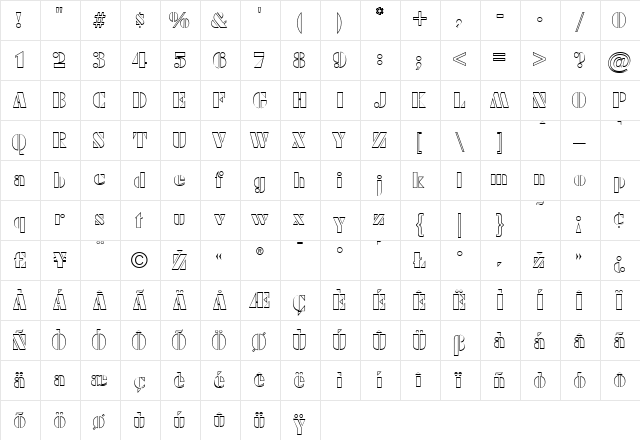
FuturamaOutline Regular
Design Context for FuturamaOutline Typeface
FuturamaOutline has a distinctly futuristic character, with geometric precision and clean angles that feel at home in technology, gaming, and sci-fi contexts.